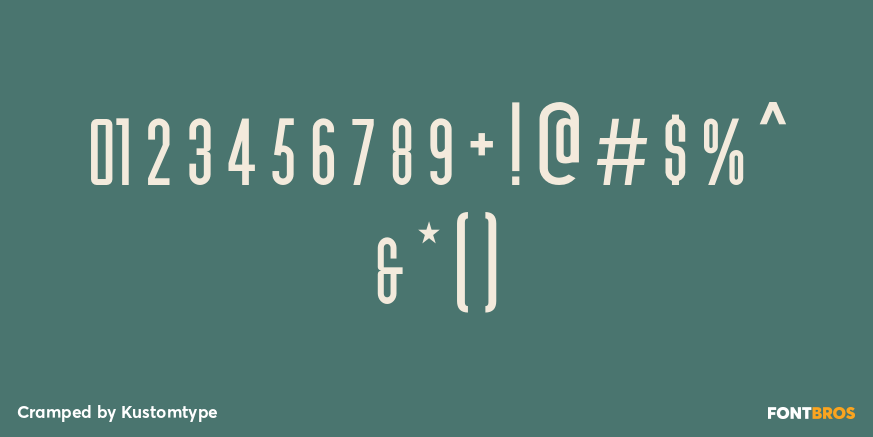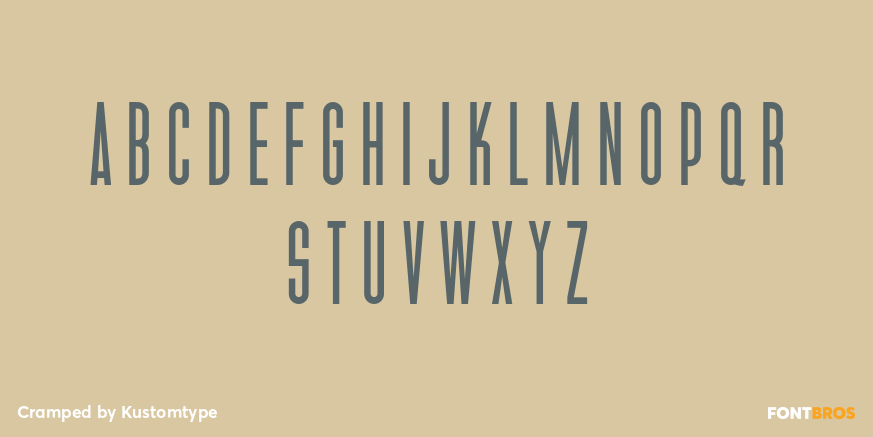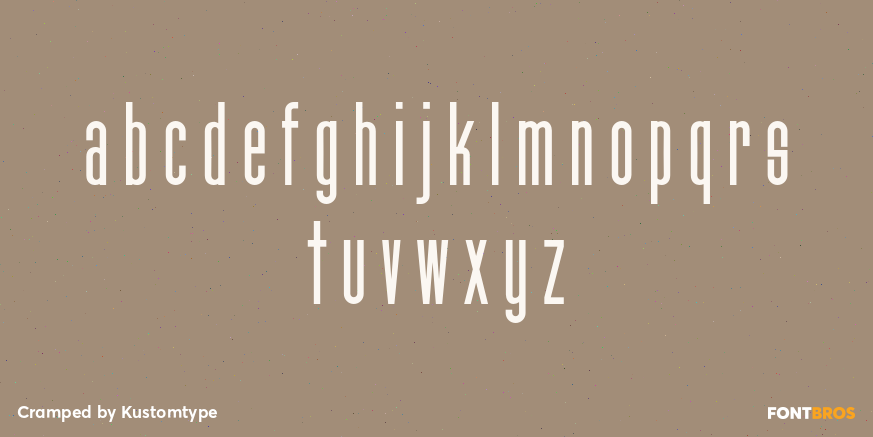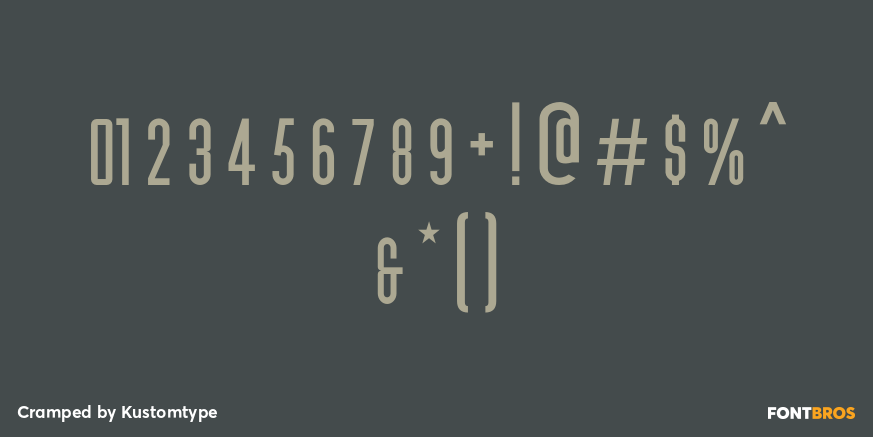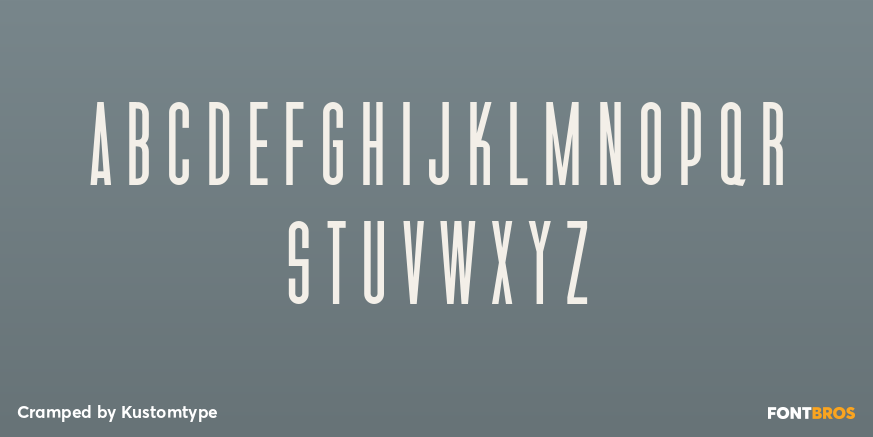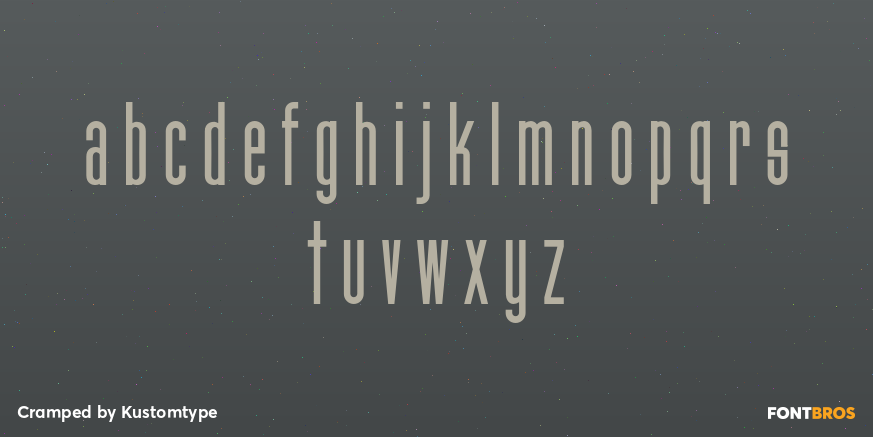
Cramped
Font Family by Kustomtype
Cramped is inspired by sign painters in sixties advertisings with a warm look and a touch of Arts & Crafts. This style of type is instantly associated with advertising and design for high-end products. Cramped is meticulously drawn for quality and readability, the font can be used for a refined vintage feeling or an industrial and futuristic atmosphere. Cramped is great for display, logos, branding, packaging, advertising, food, sports, titles, film, tv, and much more. Cramped comes in 4 styles which perfectly match together. Cramped is a great display family with roots in the advertising and sign painting industry of the 20th century. It is smoothly polished with all the features a good designer needs. For the best price, I recommend you grab the whole pack! Cramped is designed by